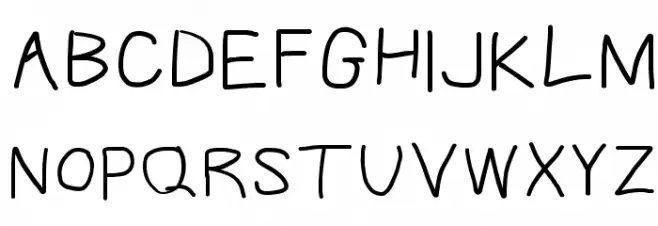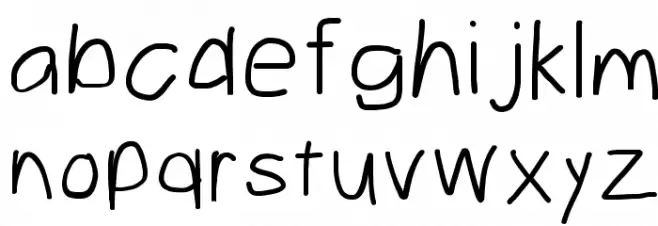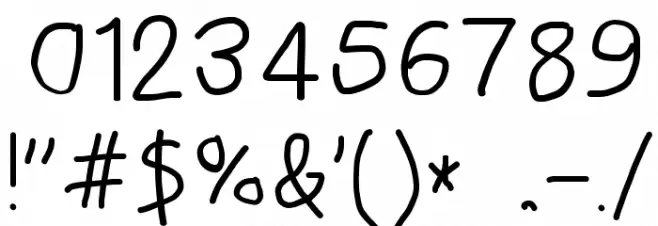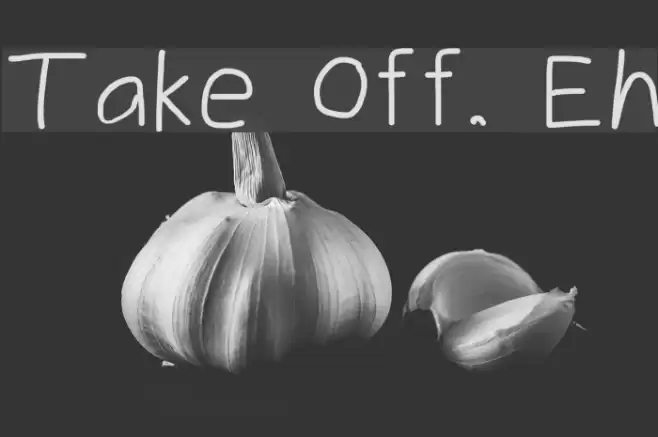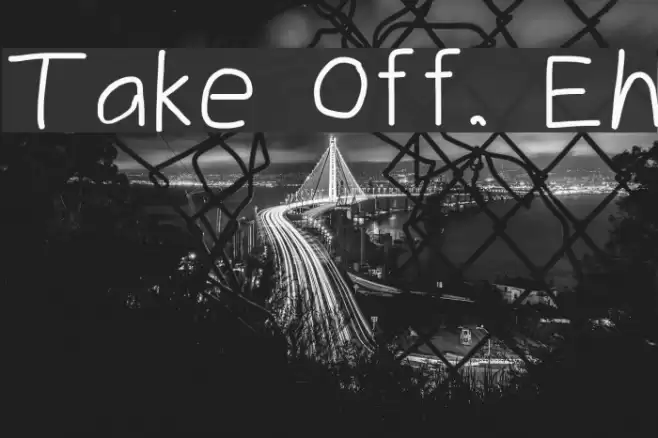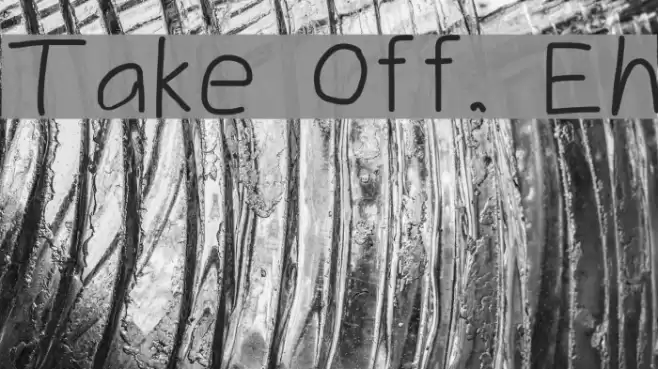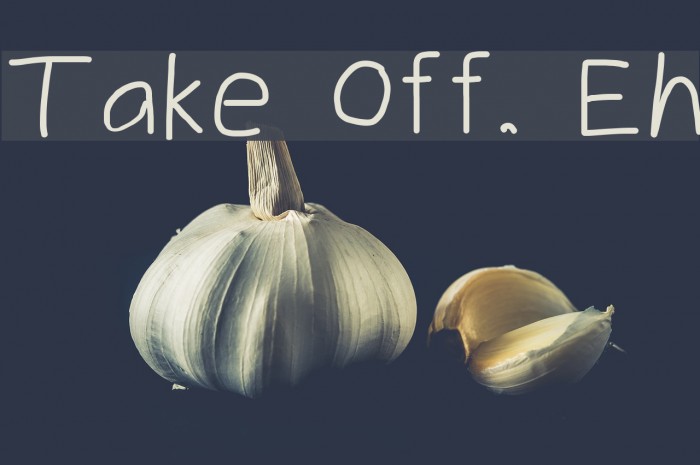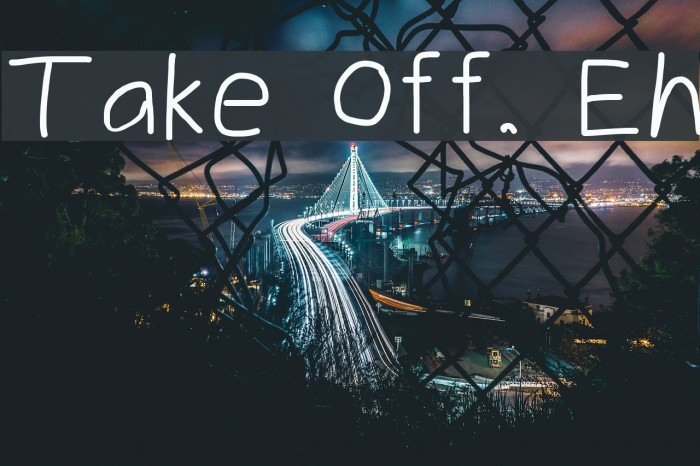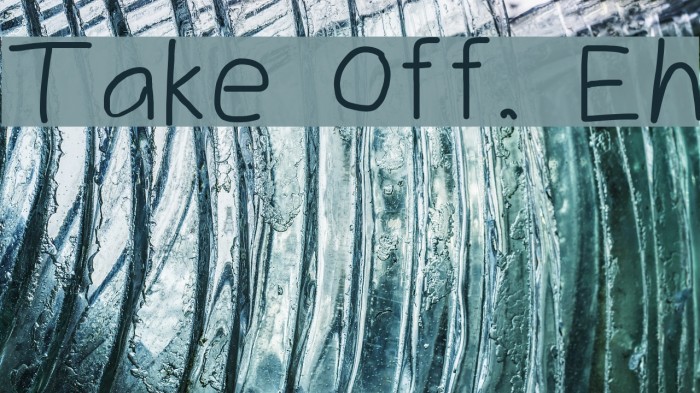
Take Off, Eh
This playful and informal font features a handwritten style with a casual and friendly appearance. The characters are slightly irregular, giving it a personal touch that mimics natural handwriting. The strokes are consistent in width, providing a uniform look while maintaining a relaxed vibe. The uppercase letters are bold and prominent, while the lowercase letters are more rounded and approachable. Numbers and special characters follow the same handwritten style, making them blend seamlessly with the alphabet. This font is perfect for projects that require a personal or informal tone.
A playful, handwritten font with a casual and friendly appearance.
- Proposed Projects: Ideal for greeting cards, children's books, personal blogs, and informal branding.
- Overall Style: Casual
- Use Case: Headlines, Informal text, Personal projects